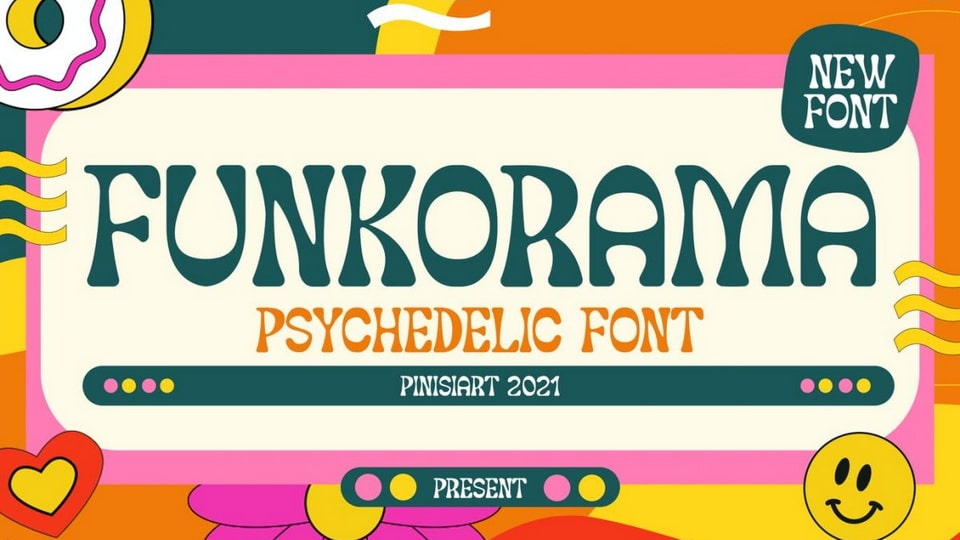
Download Funkorama font, a psychedelic typeface all about the funk, groove, and disco floor. Funkorama will bring memories from the late 70s to the modern and this technology era.